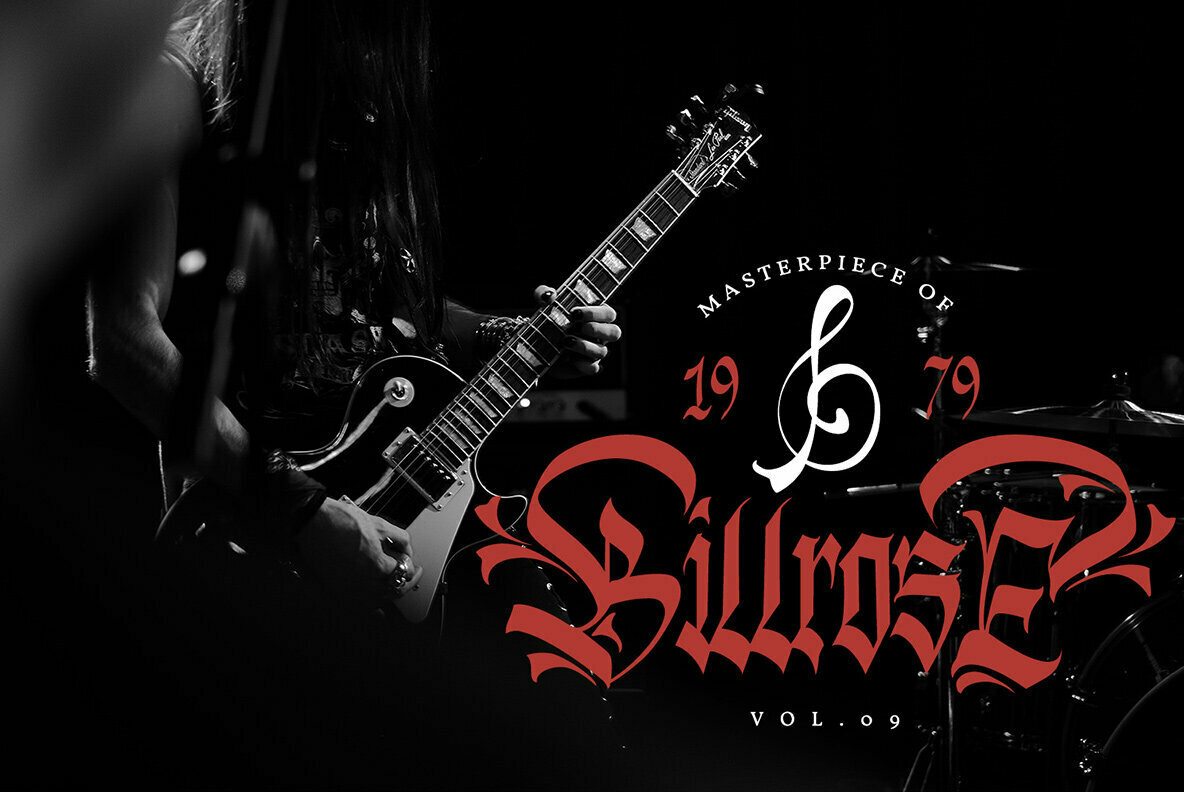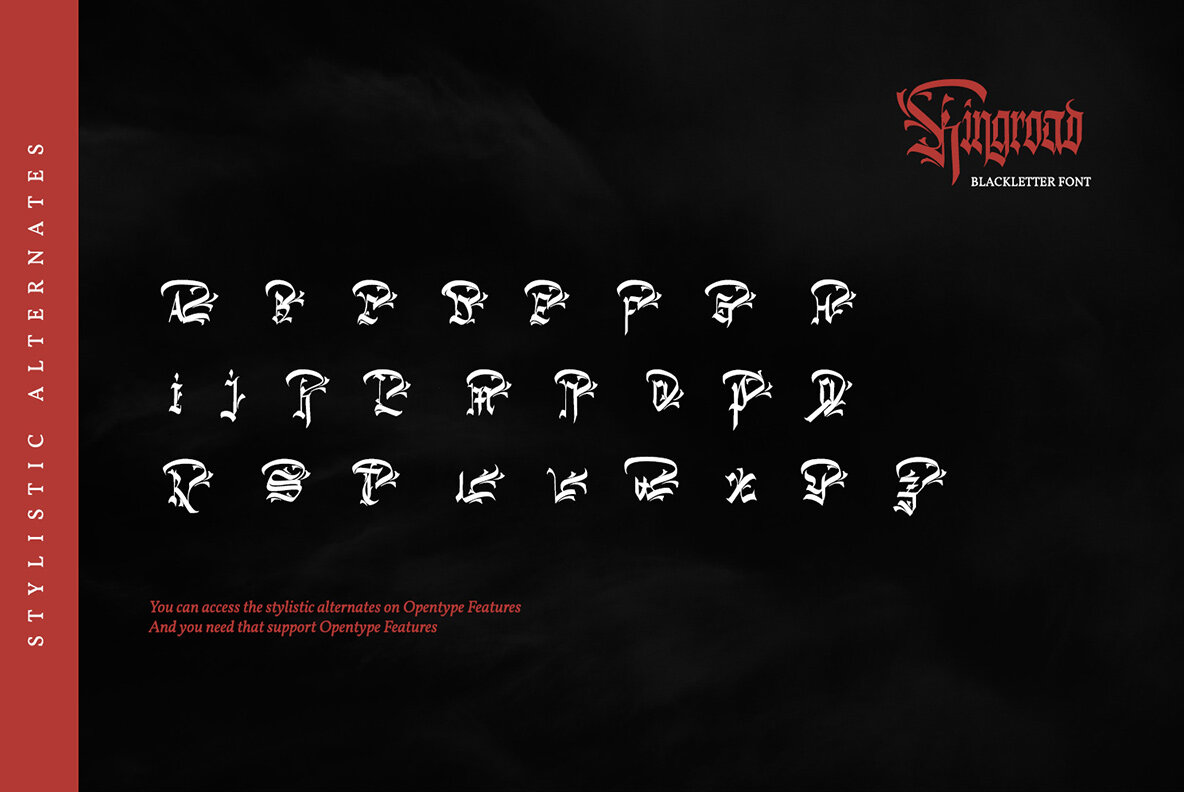
Kingroad Font
Kingroad
Kingroad presents itself as an authentic, modern interpretation of the blackletter font. It is a versatile choice, ideally suited for diverse branding projects, whether crafting logos or designing striking t-shirts. Its unique style stands out across various contexts, making it an essential tool for creative projects.Kingroad: Modern Blackletter for Diverse Branding